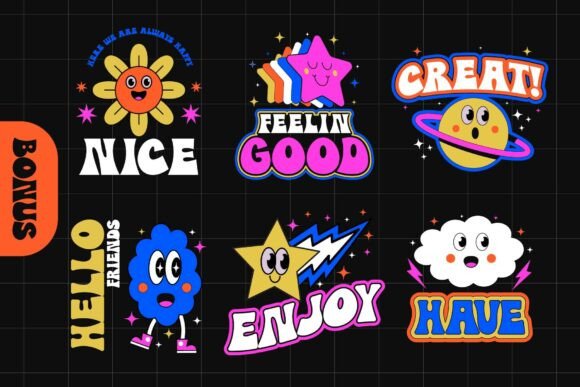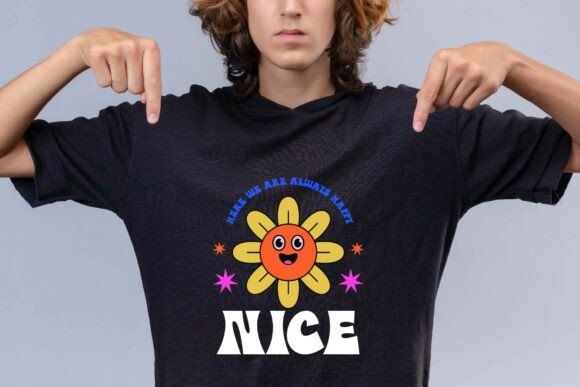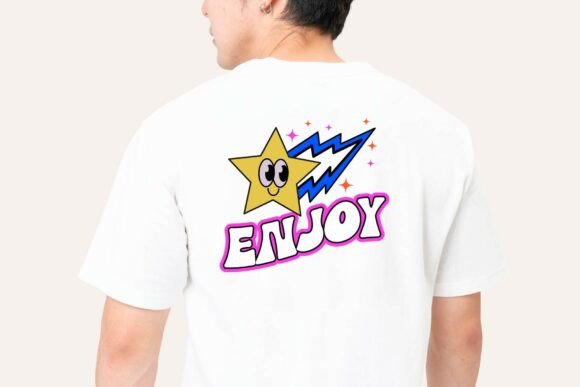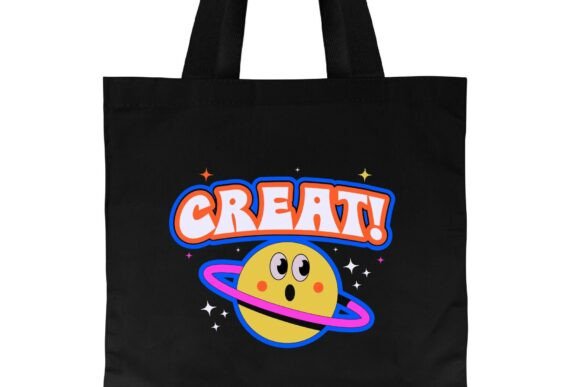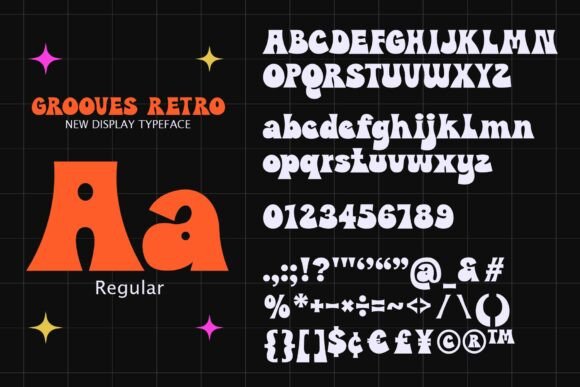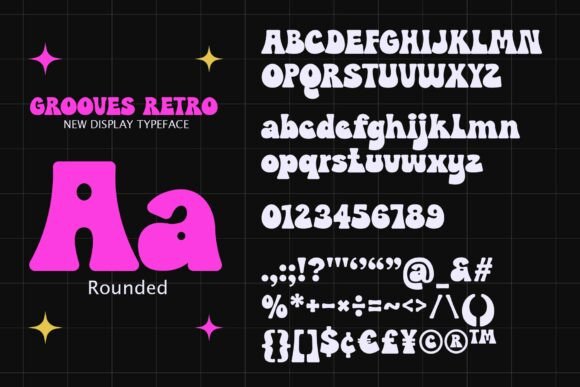
The Groovy World of Grooves Retro Font
I’ll never forget the time I was working on a vintage-inspired music poster project, and I just couldn’t find the right font to capture the essence of the 1970s. My client wanted something bold, playful, and reminiscent of the era’s iconic typography. That’s when I stumbled upon Grooves Retro Font, and it was love at first sight! 💫
With its curvy, groovy lines and retro flair, Grooves Retro instantly transported me to a world of disco balls, bell-bottom jeans, and funky vibes. I knew right then and there that this font was going to be the perfect fit for my project. And, as I soon discovered, it’s not just limited to music posters – it’s also amazing for vintage designs, party invites, branding, and even product customization.
An Honest Review of Grooves Retro Font
- ✅ Bold and playful design that’s perfect for making a statement
- ✅ Retro flair that’s reminiscent of the 1970s
- ✅ Curvy, groovy lines that add a touch of whimsy to any design
- ⚠️ Some characters may be a bit too condensed for certain design applications
- ⚠️ Limited language support (but that’s not a deal-breaker for most designers)
- Take advantage of OpenType features, such as glyphs and stylistic alternates, to add more personality to your text.
The Backstory Behind Grooves Retro Font
Grooves Retro Font was inspired by the vibrant spirit of the 1970s – an era of disco balls, bell-bottom jeans, and funky vibes. The designer, a self-proclaimed font enthusiast, wanted to capture the essence of this iconic era in a bold and playful typeface. And, with Grooves Retro, they certainly succeeded!
Q: Is Grooves Retro Font suitable for body text?
A: While Grooves Retro Font is primarily designed for display purposes, it can be used for short paragraphs of body text. However, for longer texts, a more readable font might be a better choice.